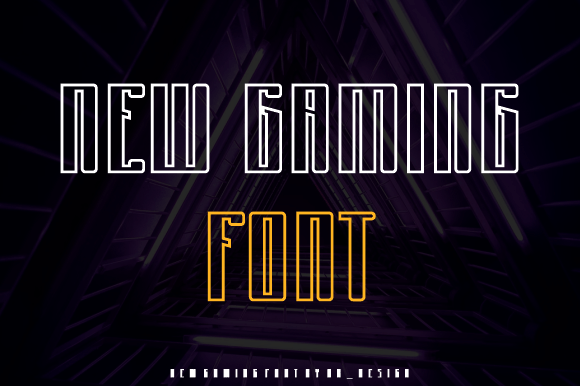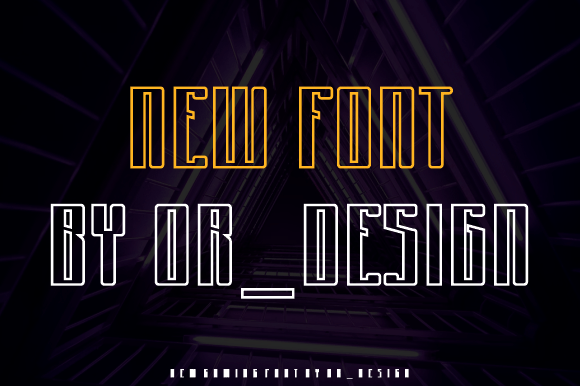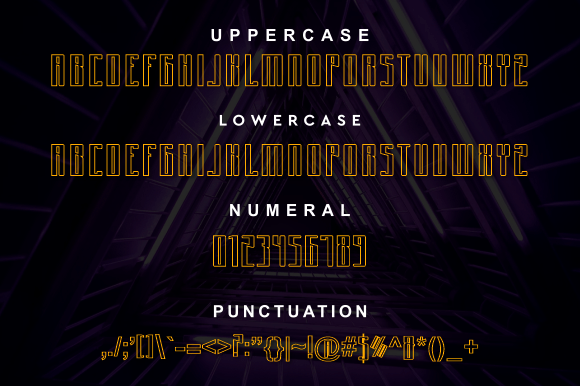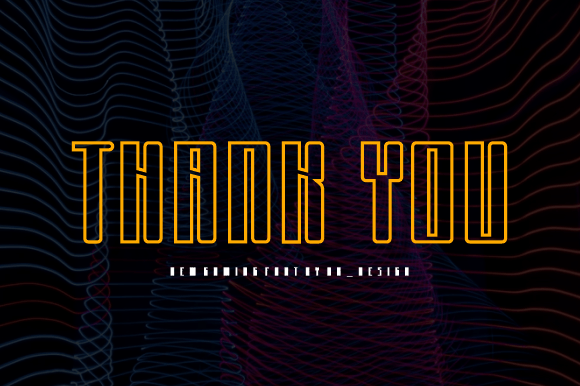
Introduction to Saruz Gaming Line Font
Saruz Gaming Line – Gaming Font is a bold and authentic display font.
The font is suitable for any branding project like logo, t-shirt printing, e-sport, and many more Outstanding in a wide range of contexts.
Saruz Gaming Line Font offers exceptional quality and versatility, making it a valuable addition to your design toolkit. Whether you’re creating for personal projects or commercial use, Saruz Gaming Line Font delivers professional results.